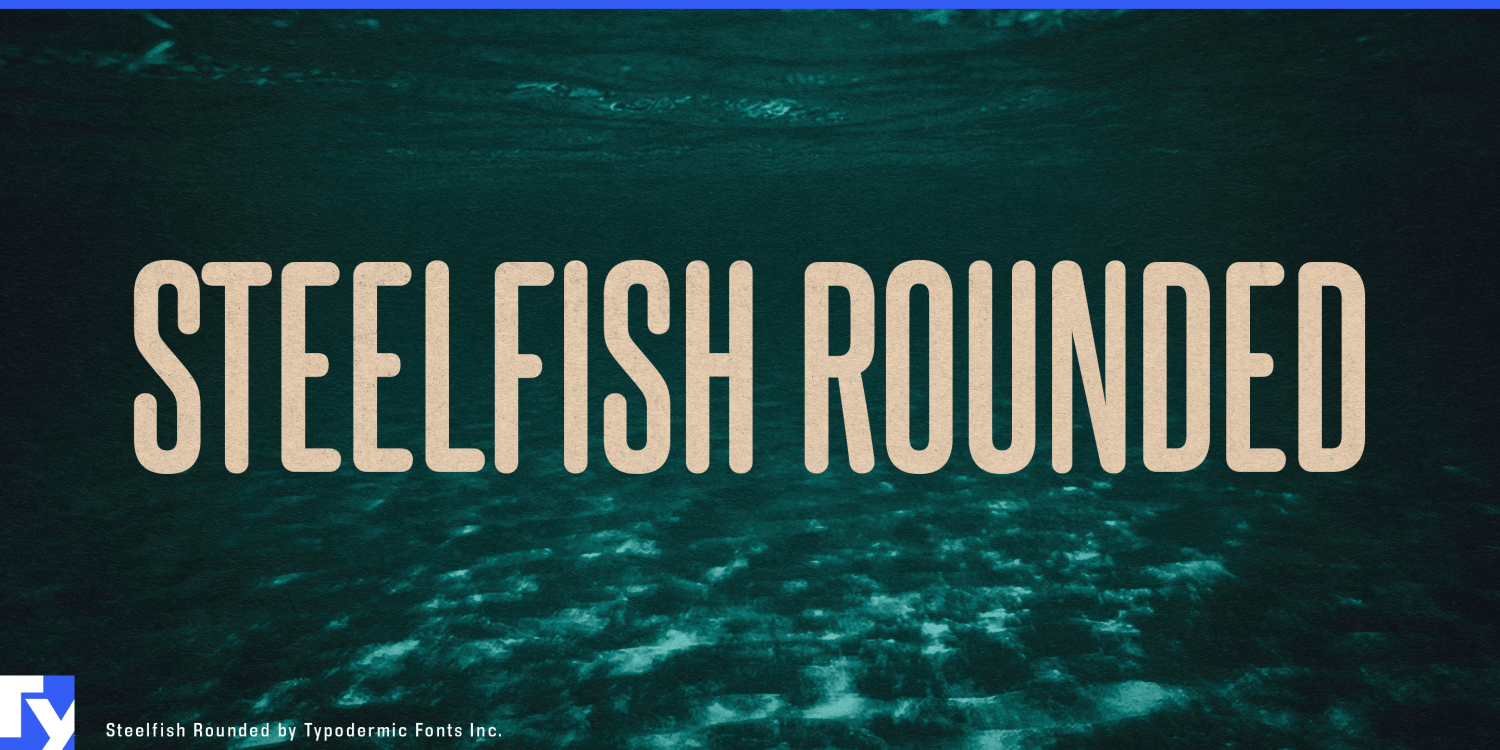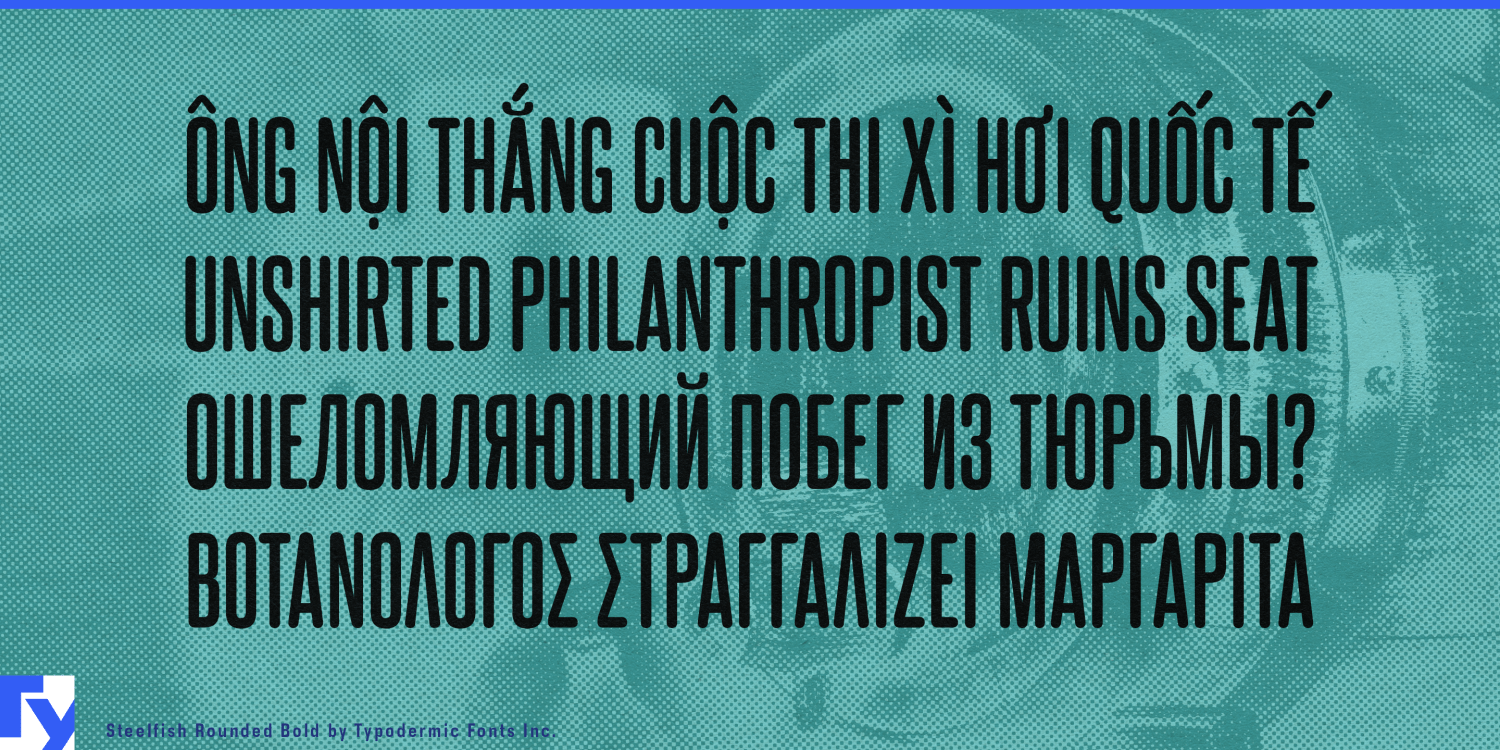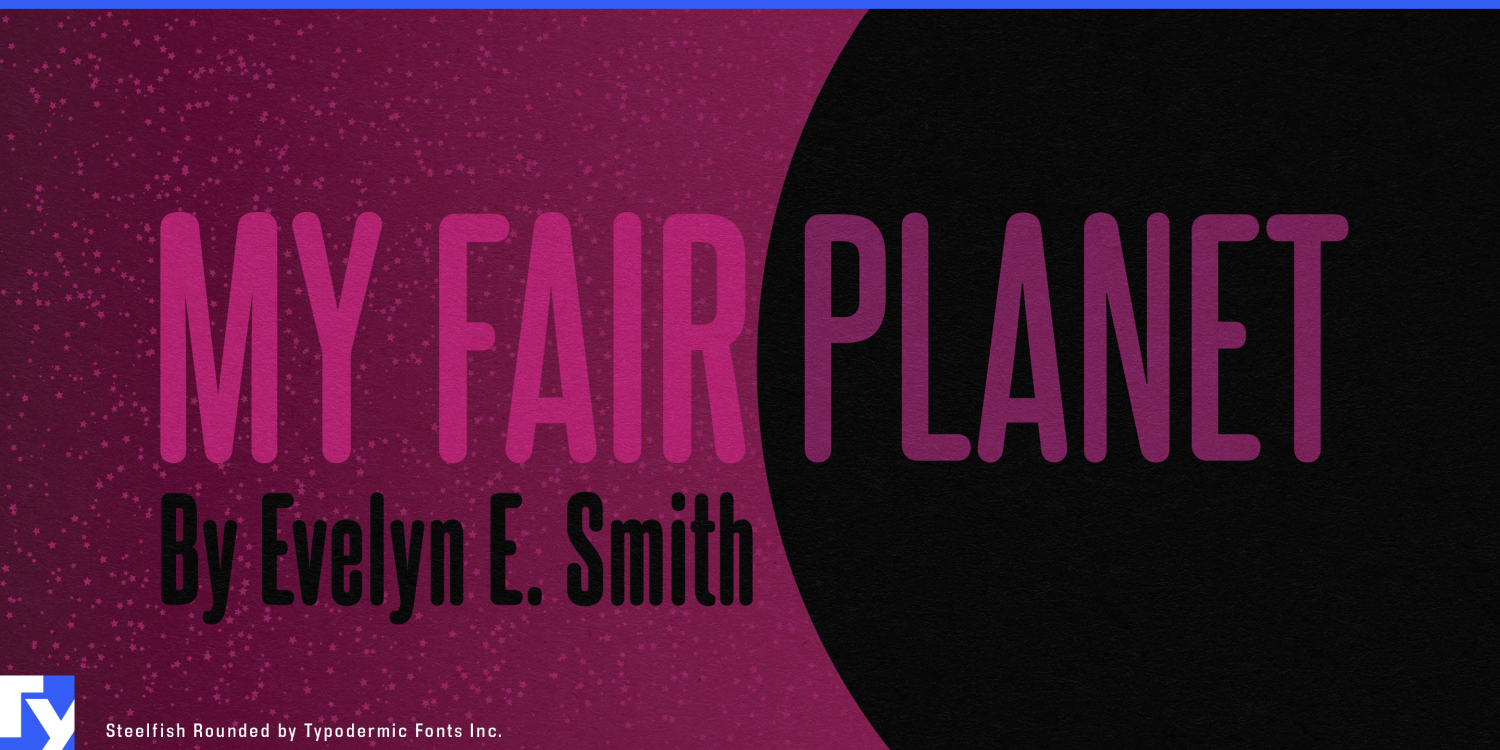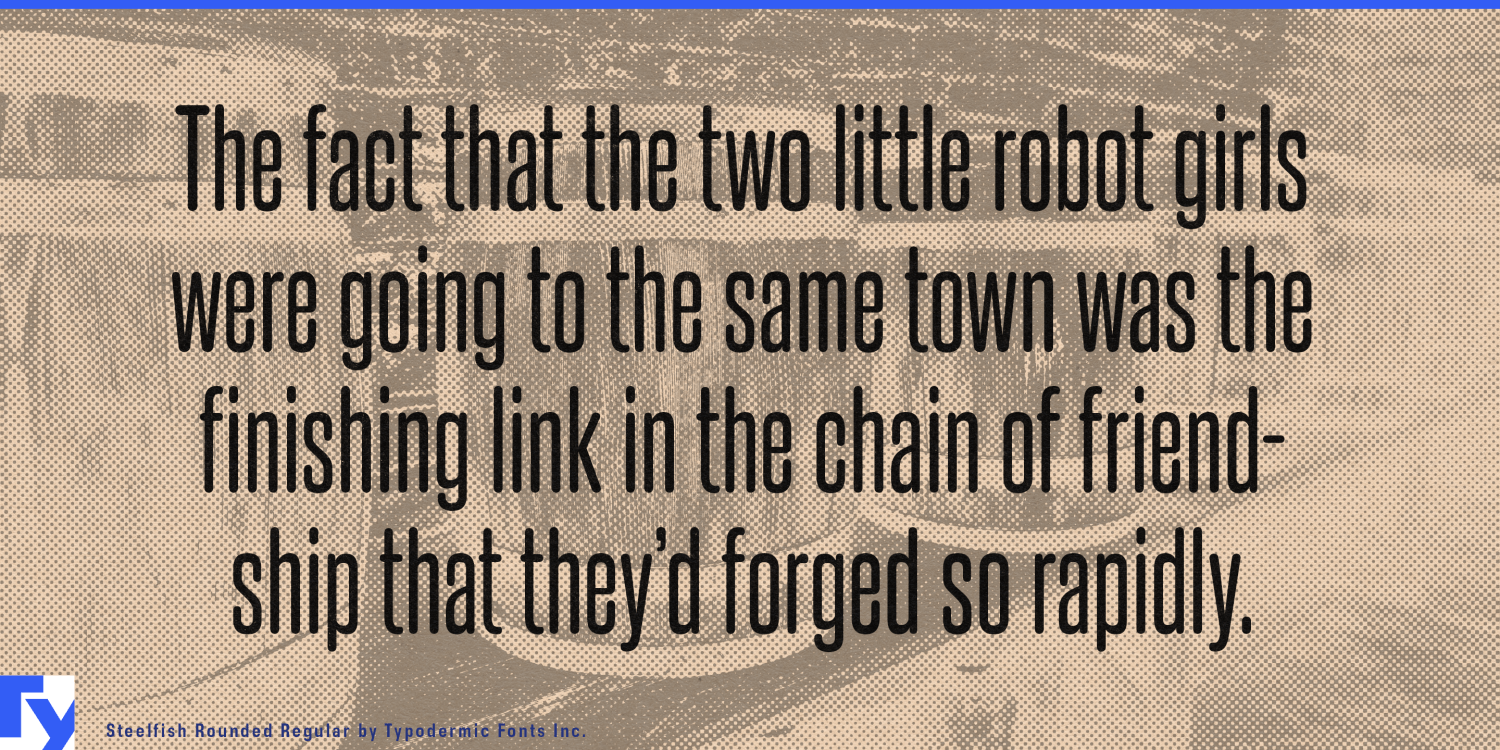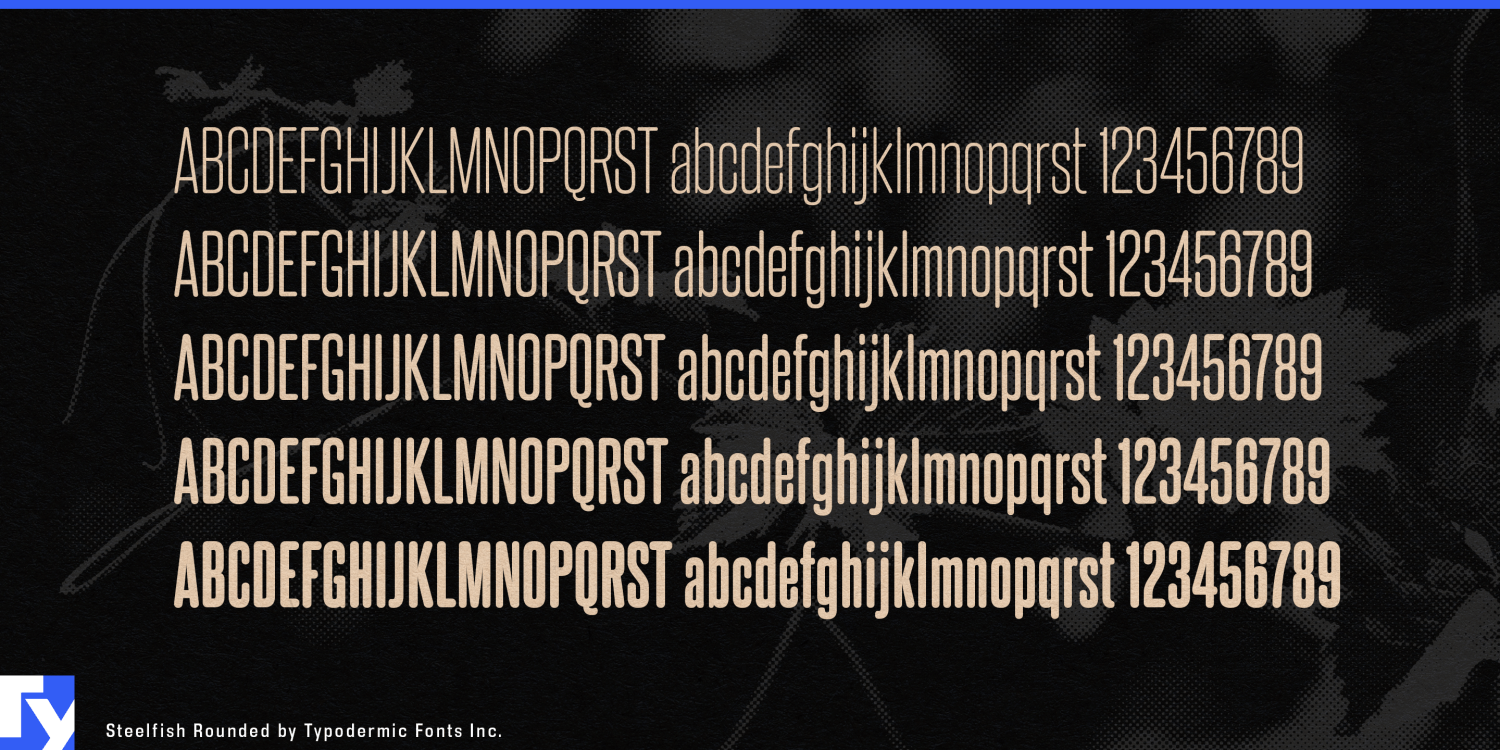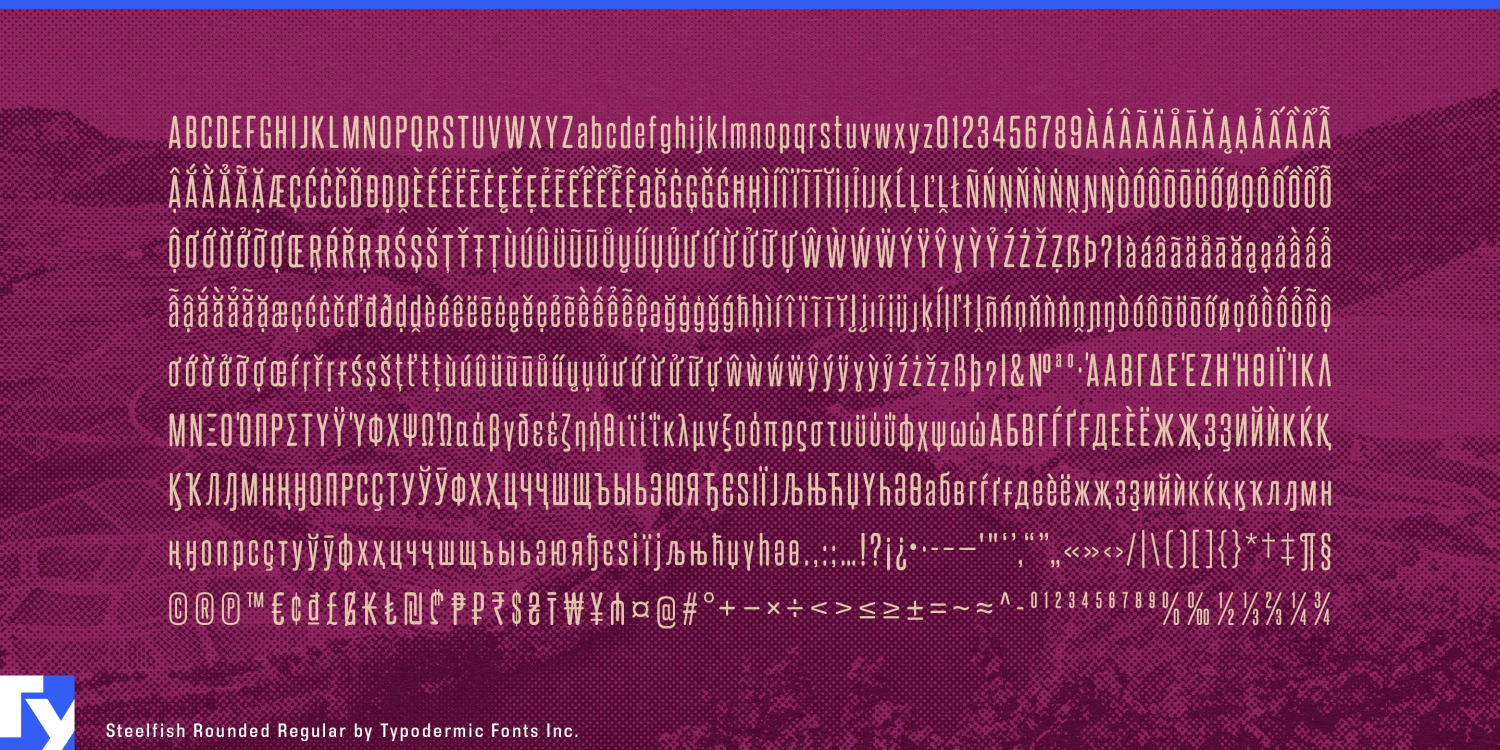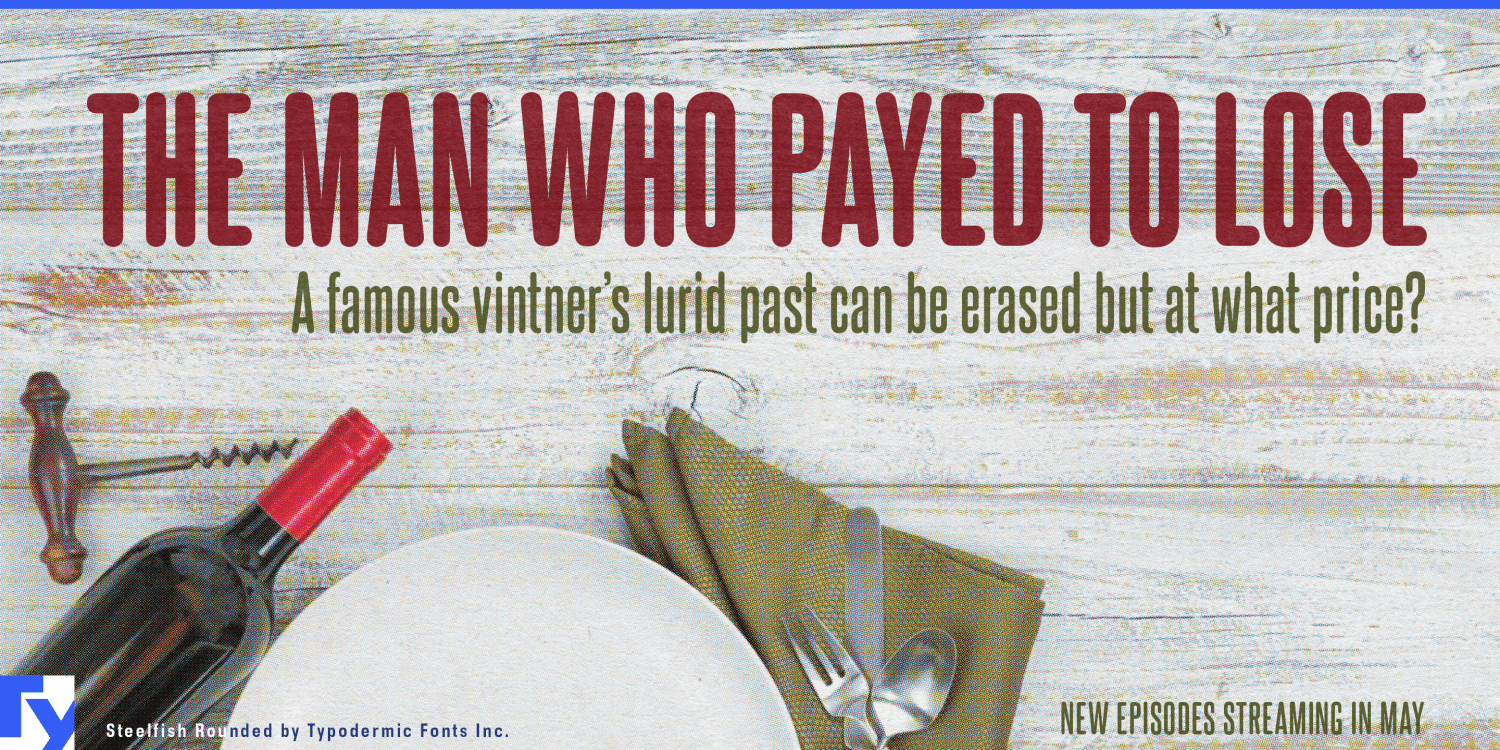
Steelfish Rounded
The family remains unmistakably tall and narrow. Its rounding does not turn the letters into bubbles or sacrifice their vertical efficiency; it simply takes the edge off the structure. Five weights from Extra-Light through Extra-Bold provide a range from fine display typography to substantial product names and promotional headings.
Personal-care and beauty packaging is a natural fit. Shampoo and conditioner bottles, skincare pumps, sunscreen tubes, deodorant sticks and grooming products often provide a surprisingly narrow face for brand names, collections and variants. Steelfish Rounded allows long names to stay large without introducing the industrial or athletic tone of a harder condensed sans.
Slim beverage containers present the same physical problem. Sparkling water, canned coffee, electrolyte drinks, functional beverages and non-alcoholic mixed drinks have tall cylindrical surfaces where horizontal space disappears quickly. Steelfish Rounded can preserve the scale of flavor names and product lines while keeping the package softer and more consumer-facing.
The same typography can continue into retail and hospitality. Shelf strips, endcap panels, hanging category markers, menu-board headings, amenity names and activity listings all impose width restrictions on messages that still need to be seen quickly. Museums, aquariums and family attractions can use the family for exhibit titles, gallery names and vertical information panels where longer wording must remain prominent without feeling overly institutional.
Steelfish Rounded belongs to a broader group of related families. The original Steelfish keeps the ultra-condensed structure clean for dense information systems; Steelfish Steeled adds a scuffed industrial surface; Steelfish Hammer pushes further into battered texture; and Steelfish Unleaded applies its own worn, softened treatment. Steelfish Rounded is the branch for applications where extreme compression is useful but hardness is not.